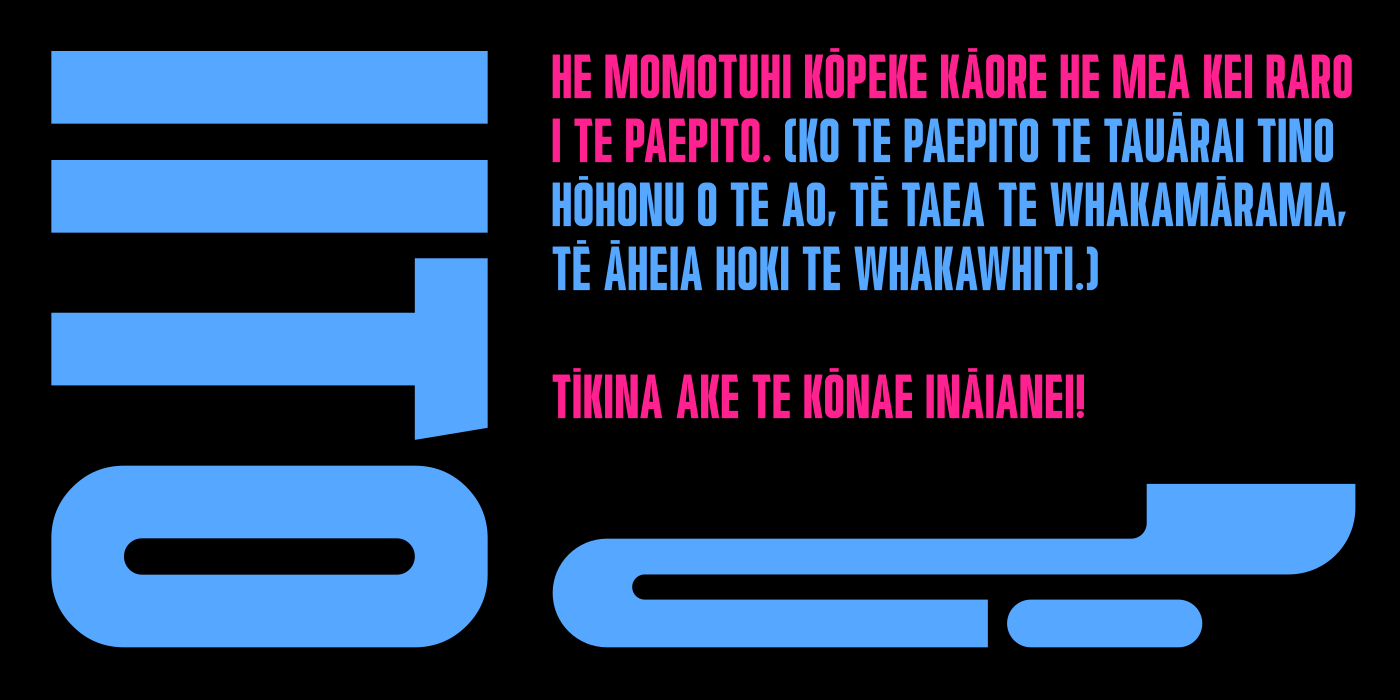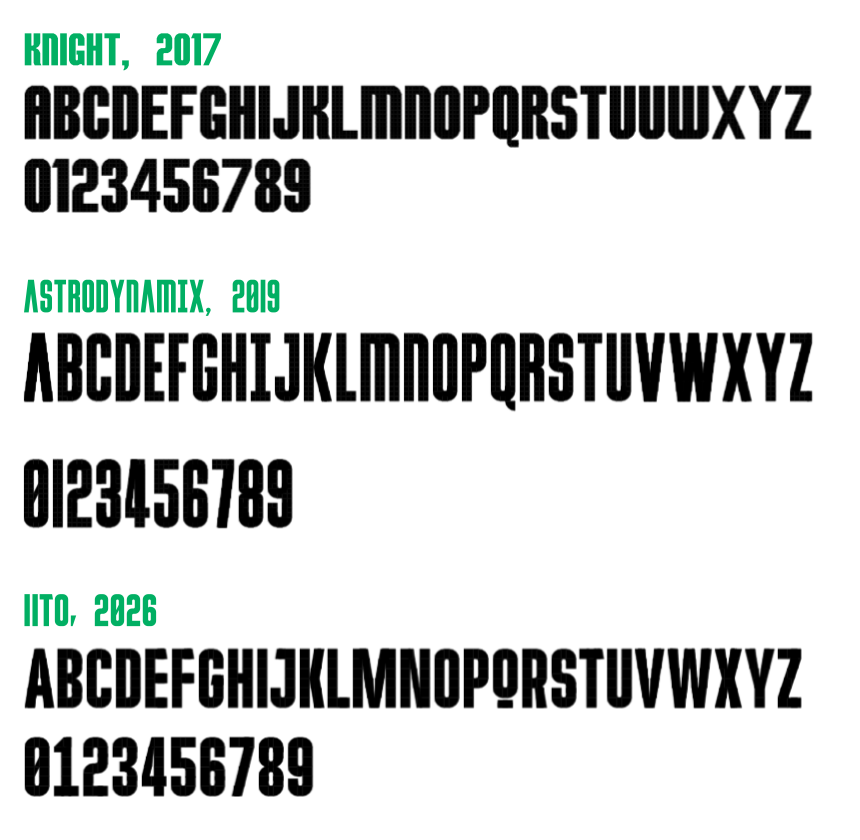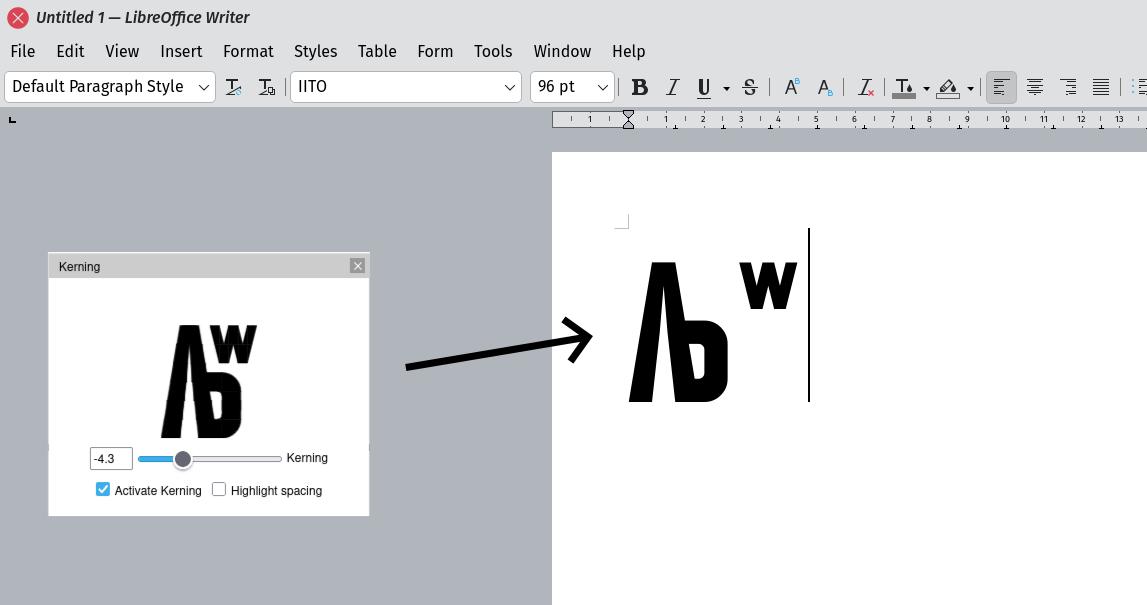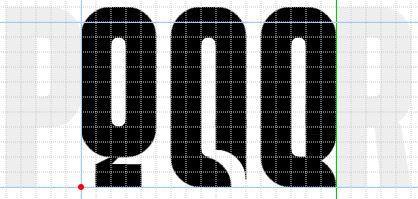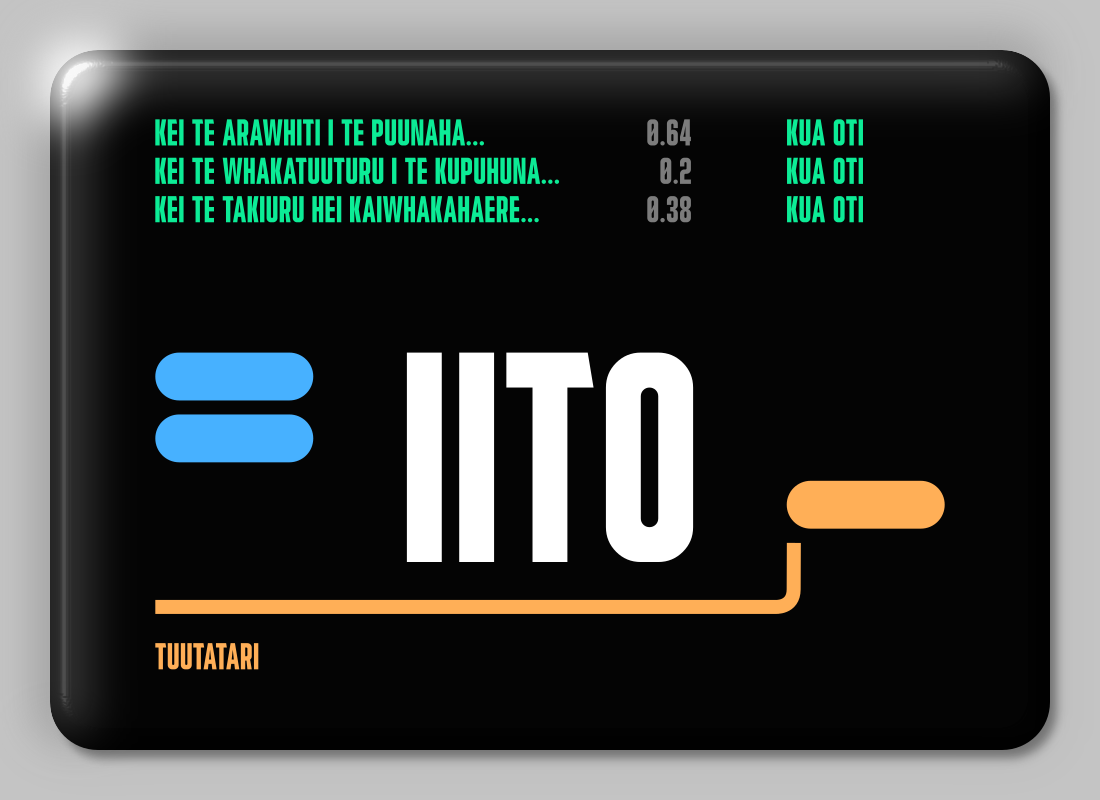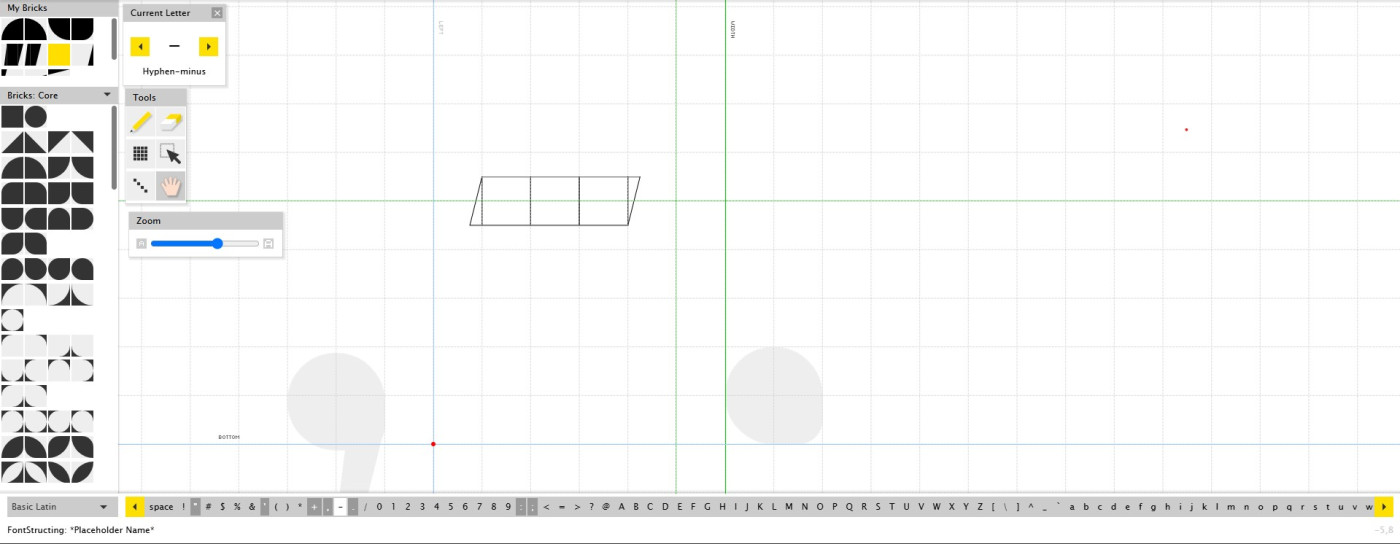
• IT IS I: THE MYSTERIOUS HACKER WHO ONCE BROKE THE SITE BY REDIRECTING EVERY USER TO THE RICKROLL VIDEO ON YOUTUBE, BACK AGAIN WITH ANOTHER FONT!
THIS TIME, IT’S A COMPRESSED FONT WHERE NOTHING GOES BELOW THE BASELINE. (THE BASELINE IS THE WORLD’S MOST PROFOUND AND INEXPLICABLE BARRIER WHICH MAY NEVER BE CROSSED.)
FEATURES
• KERNING!
• A QUESTION MARK WITH SCOLIOSIS!
• A Q THAT SNEEZED SO HARD THAT ITS TAIL FELL OFF!
• NOTCHES CUT OUT OF E, F, J, T, AND Ƃ TO FIT NICELY WITH V, W, AND Y!
• INK TRAPS TO COMPENSATE FOR THE THICKNESS OF THE STROKES!
• ALL NUMERALS IN THE NUMBERBET ARE MONOSPACED, SO THEY CAN BE USED IN A DYNAMIC INTERFACE WITHOUT JUMPING AROUND!
This is my 3rd attempt at a compressed font. Hopefully it’s progressing in the right direction!
Another problem that I’ve been having with Fontstruct is that there’s no way to fully remove a character once you’ve placed a block on it. For instance, I originally made a “Њ” for IITO, which I removed, but it still tries to render it even though there’s nothing there. It would be better if it didn’t contain that codepoint at all so that it could fall back to another font for that character.
The font is impressive, especially because it seems you did it in just a few days. Your sample of your three compressed fonts definitely shows progress in typeface design. Any real reason why descenders are avoided here? The ink traps in this font adds more nuanced value to the letters than it would seem possible.
Thanks. The only descender would have been in Q, and none of the rounded characters were going under the baseline anyway, so I thought I’d make it a rule. The only other character it really affected was the comma though. It has a slight benefit when using the font in graphic design software, because it makes it easier to snap to the real baseline. If I use it in an interface, I also don’t need to account for overhang, so there’s less to worry about.
Wait, the notches cut off from the letters you mentioned look like my plus and minus sign.